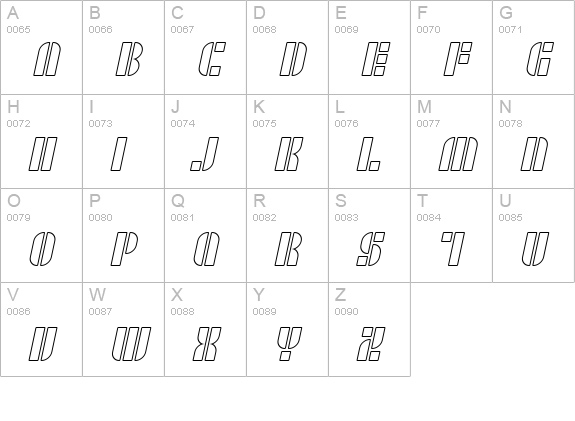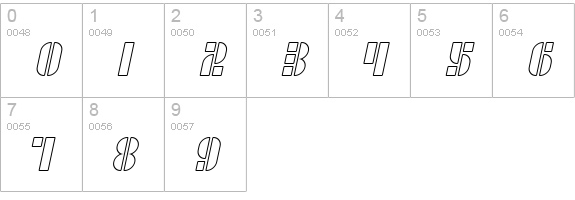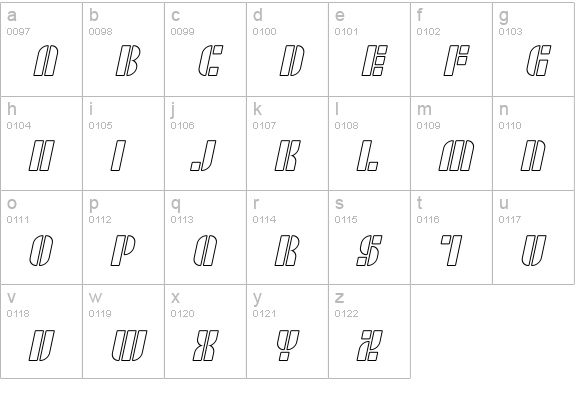
SF RetroSplice SC Outline Font Details
The SF RetroSplice SC Outline font is a stunning and captivating typeface that effortlessly combines the charm of retro design with a modern twist. With its sleek and sophisticated outline style, this font is perfect for adding a touch of vintage flair to any project. Featuring clean lines and a bold appearance, SF RetroSplice SC Outline is ideal for creating eye-catching headlines, logos, and signage that demand attention. The unique blend of retro aesthetics and contemporary design elements make this font versatile and suitable for a wide range of applications. One of the standout features of SF RetroSplice SC Outline is its ability to evoke a sense of nostalgia while maintaining a fresh and contemporary vibe. Its bold and distinctive letterforms pay homage to the fonts of yesteryears, making it a perfect choice for projects that require a touch of vintage charm. Not only does SF RetroSplice SC Outline possess an aesthetically pleasing design, but it is also highly legible. Its carefully crafted letterforms ensure that your message is clear and easily readable, even at smaller sizes. This makes it an excellent choice for both print and digital mediums. What's more, SF RetroSplice SC Outline is available for free download at FontsMarket.com, making it accessible to designers and creatives of all levels. Whether you're a seasoned professional or a hobbyist, this font allows you to add a touch of retro elegance to your designs without breaking the bank. In conclusion, SF RetroSplice SC Outline is a visually striking typeface that effortlessly blends the allure of retro design with a contemporary twist. Its bold and distinctive letterforms make it a versatile choice for various design projects, while its legibility ensures that your message is always clear. Best of all, it is freely available to download at FontsMarket.com, allowing you to elevate your designs without any cost constraints.